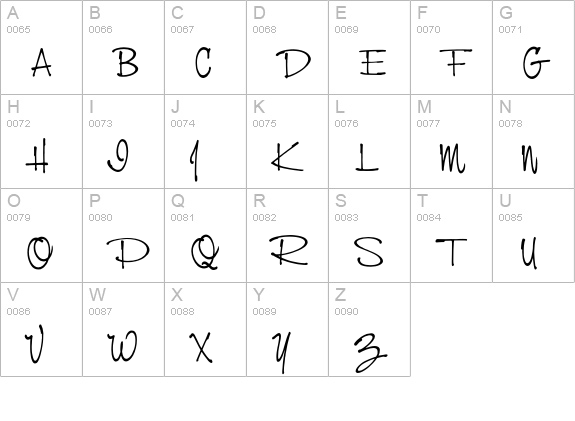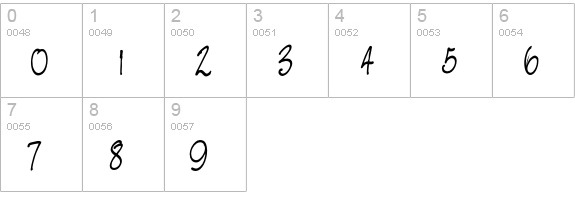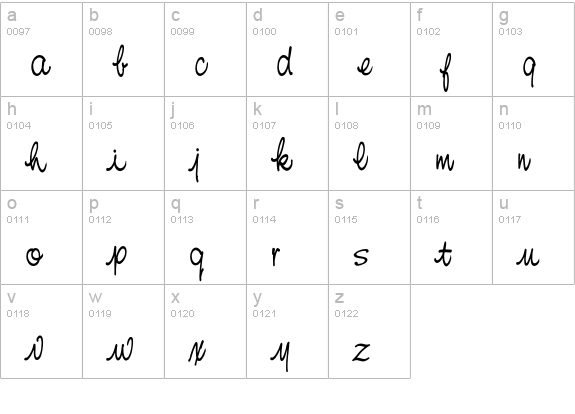
NevisionCasualEF Font Details
NevisionCasualEF font is a charming and versatile typeface that exudes a casual and friendly vibe. Its soft curves and rounded edges give it a warm and inviting aesthetic, making it perfect for a wide range of design projects. Whether you're creating invitations, posters, or social media graphics, NevisionCasualEF font will add a touch of whimsy and playfulness to your work. The best part is that NevisionCasualEF font is completely free to download at FontsMarket.com, making it easily accessible to anyone looking to add a fun and lighthearted element to their designs. With its smooth lines and modern look, this font is sure to become a go-to choice for all your creative endeavors. Don't miss out on the opportunity to enhance your projects with the delightful NevisionCasualEF font!